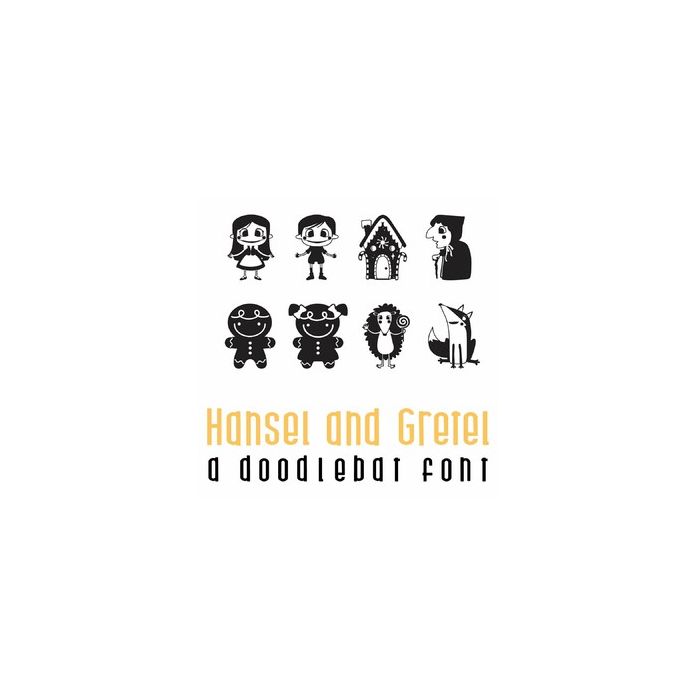
This fun doodlebat font features 26 classic Hansel and Gretel imagery. Perfect for cards, gifts, decor, crafts, scrap book pages, planner stickers and more!